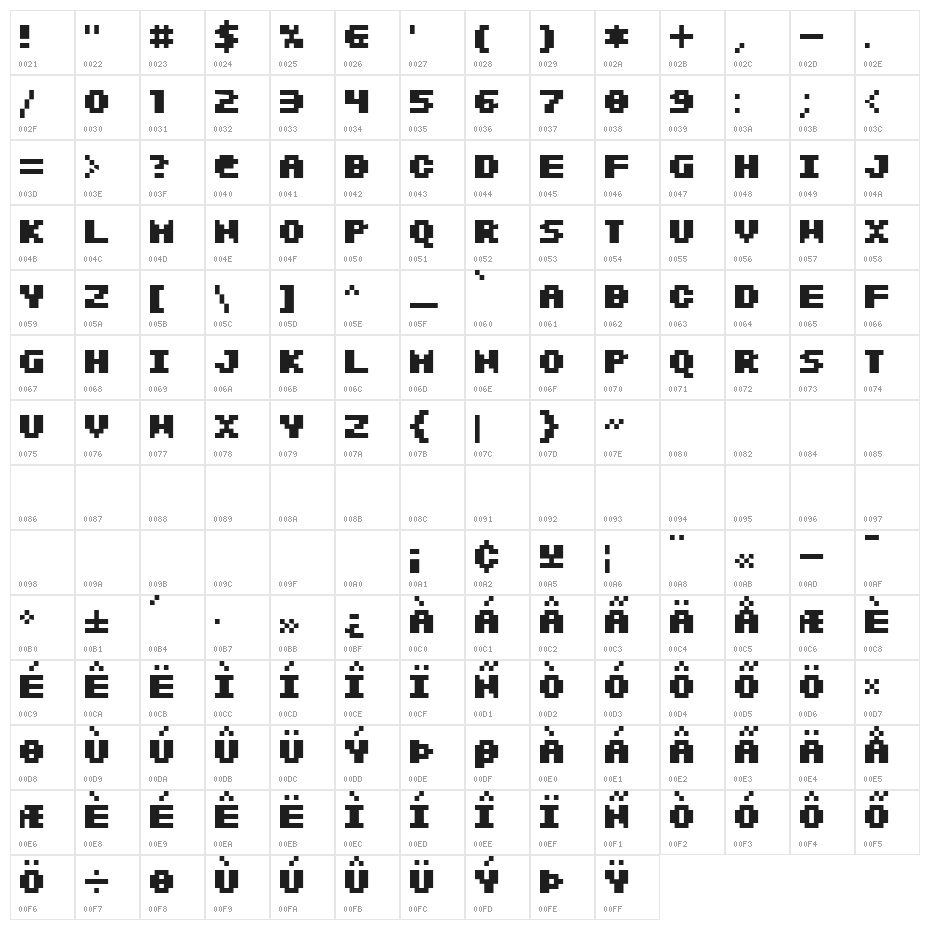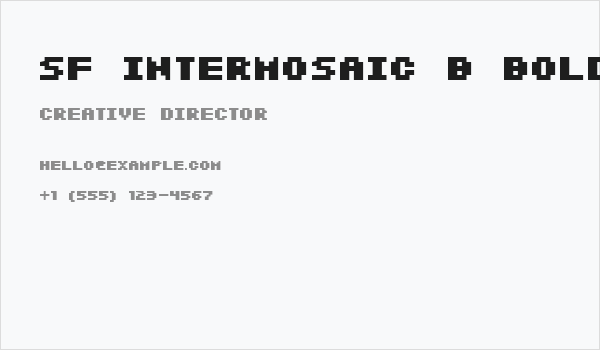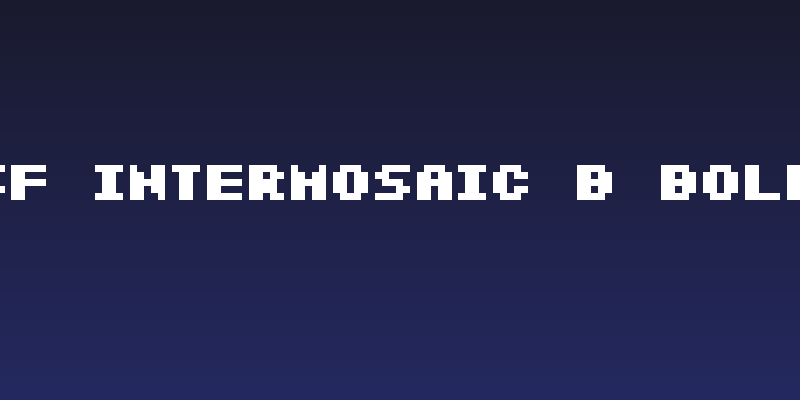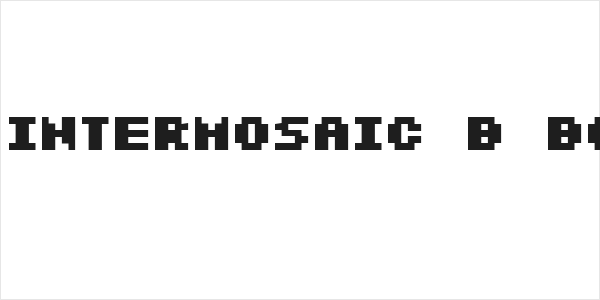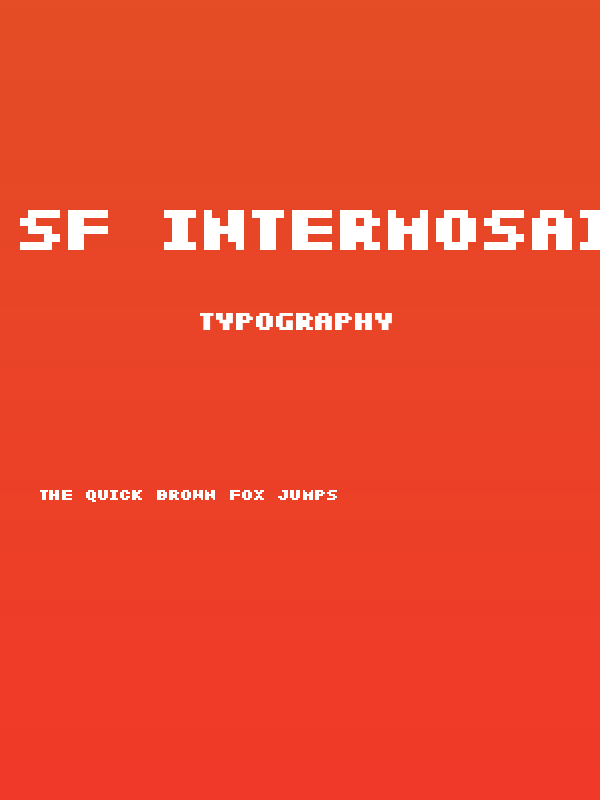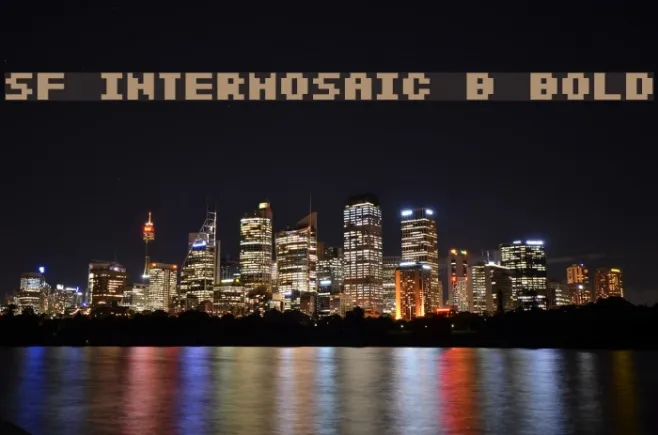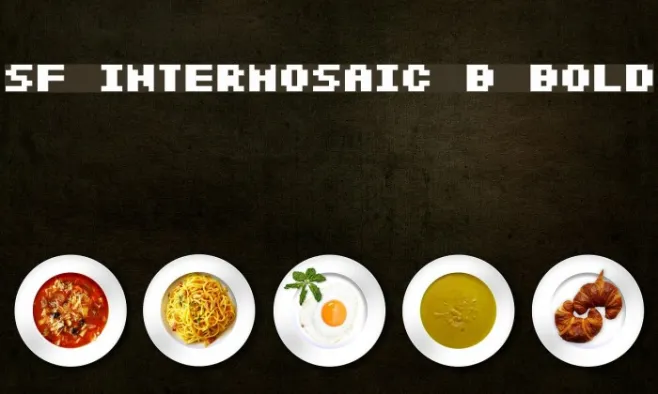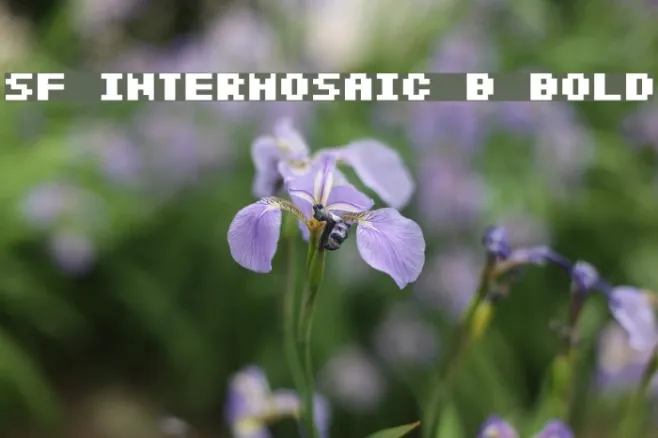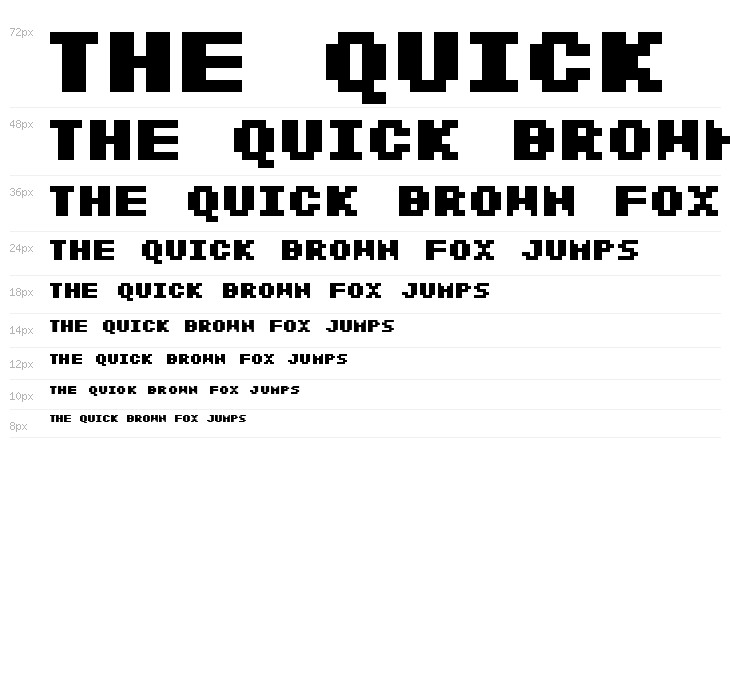
SF Intermosaic B Bold Font
SF Intermosaic B Bold Description
This font features a bold, pixelated design reminiscent of classic arcade games and digital displays. Each character is constructed with a blocky, geometric style, giving it a distinctly retro and digital aesthetic. The uniformity in stroke width across all characters contributes to a cohesive and structured appearance. The uppercase and lowercase letters maintain a consistent height, enhancing readability while preserving the font's unique style. Numbers and special characters follow the same design principles, ensuring a harmonious look throughout. This font is ideal for projects that aim to evoke nostalgia or a digital theme.
| Proposed Projects | Perfect for video game graphics, retro-themed posters, digital art, and tech-related branding. |